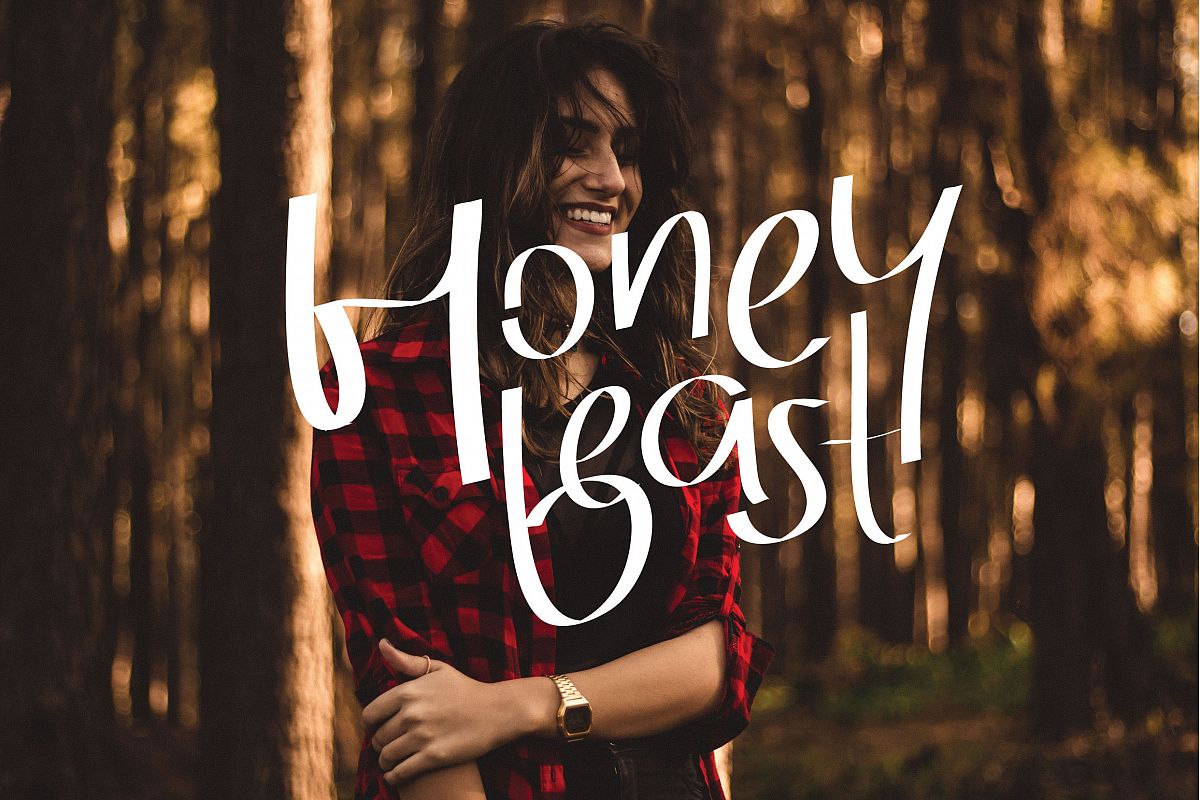
Honeybeast
Honeybeast-Regular
Honeybeast is a laid back, playful, handwritten sans serif font.
Perfect for photographers, creating logos, boho wedding invitations and also for displaying longer texts.